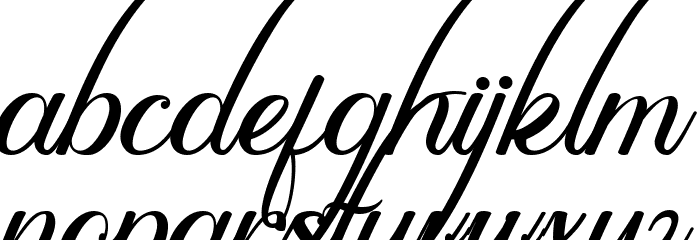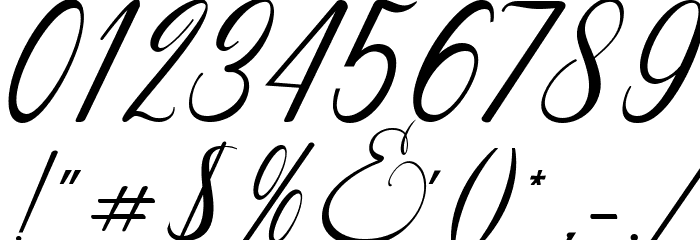
Esdoria Journey Font
This font is an elegant and sophisticated script style, characterized by its flowing, interconnected letterforms. The uppercase letters exhibit elaborate swashes and flourishes, giving a sense of grandeur and formality. The lowercase letters maintain a smooth, cursive flow, enhancing readability while retaining an artistic flair. The numerals are stylishly crafted, matching the overall aesthetic of the font. Special characters are designed with similar attention to detail, ensuring consistency across all glyphs. This font is ideal for projects that require a touch of elegance and sophistication.
An elegant script font with flowing, interconnected letterforms and elaborate swashes.
- Font: Esdoria Journey
- Proposed Projects: Wedding invitations, luxury branding, elegant packaging, formal event programs, and decorative signage.
- Category: Script
- Overall Style: Elegant
- Use Case: Logos, Invitations, Decorative text